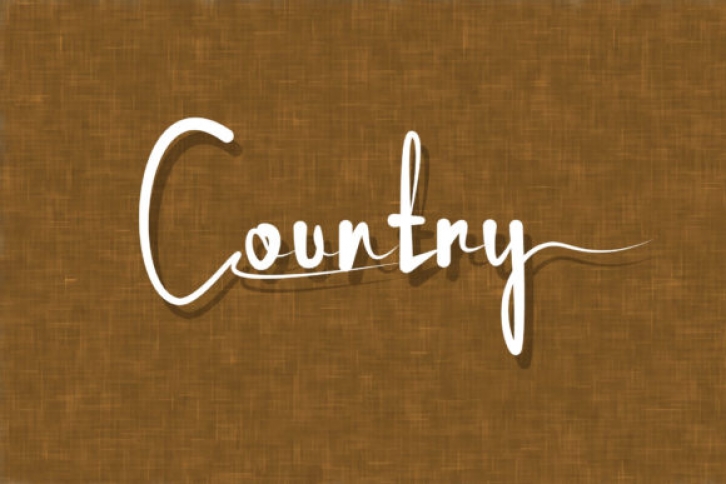
Country is a chic, refined script font that emanates sophistication and elegance. Its stylish alternates and ligatures make this font the perfect match for any project.